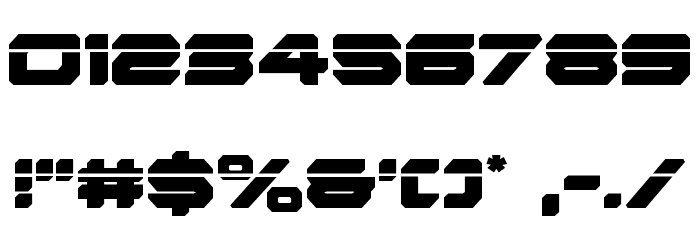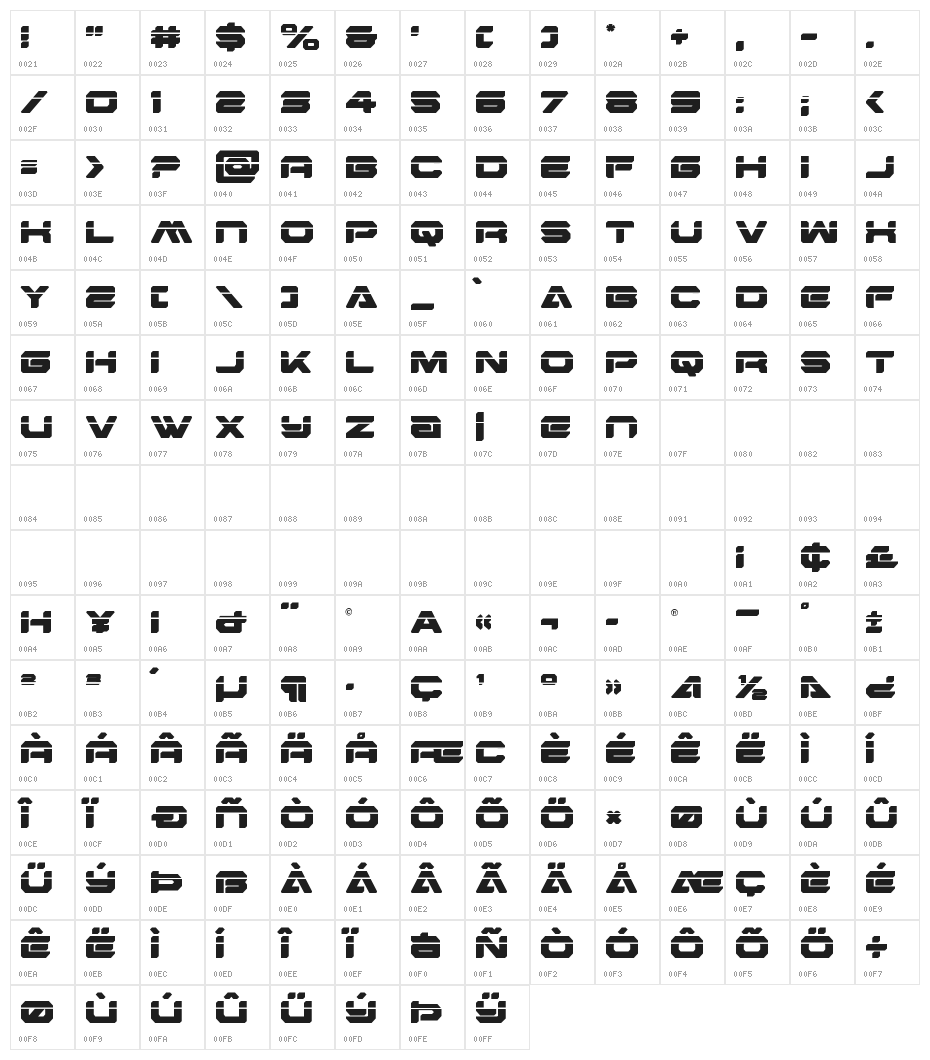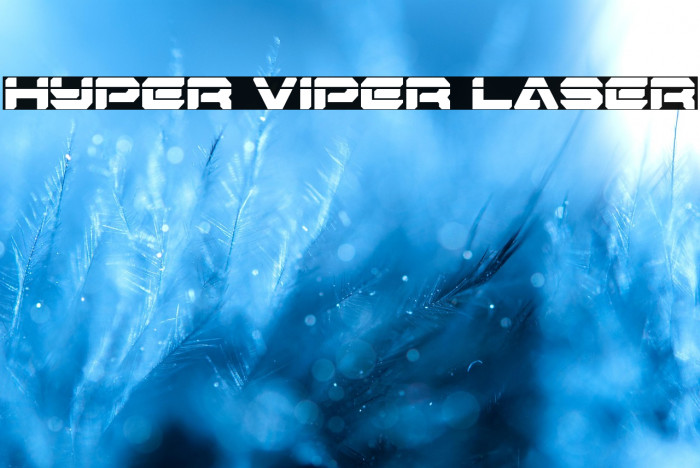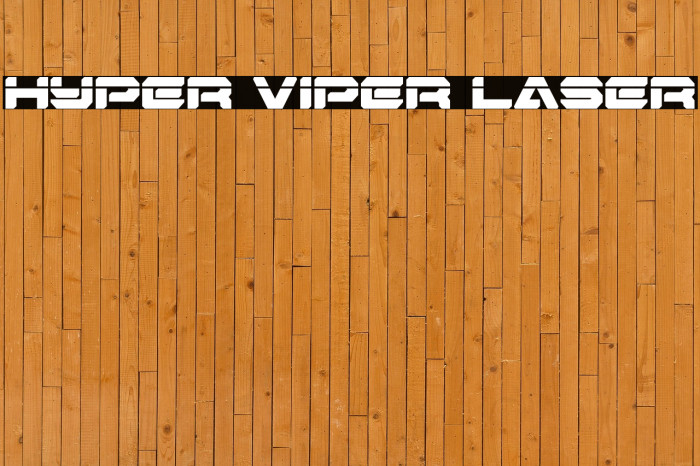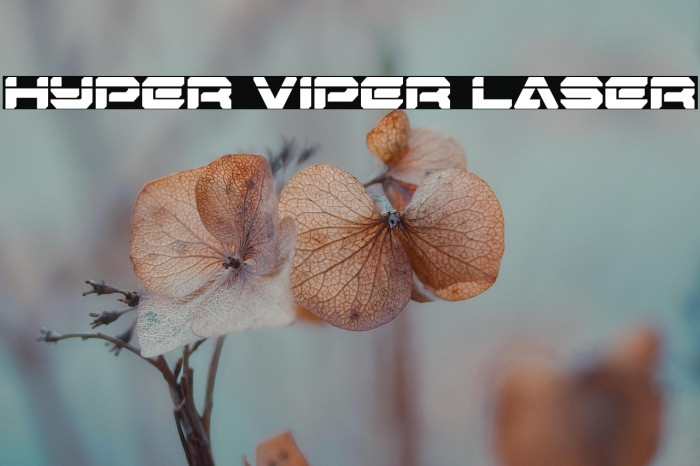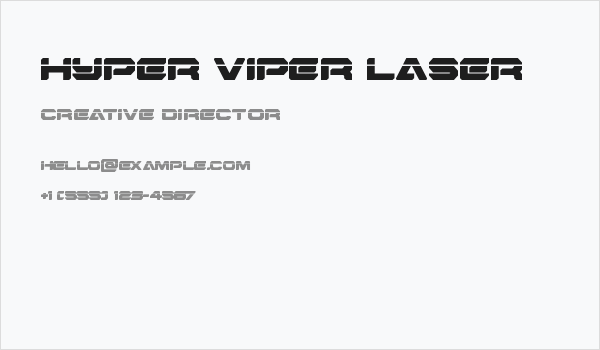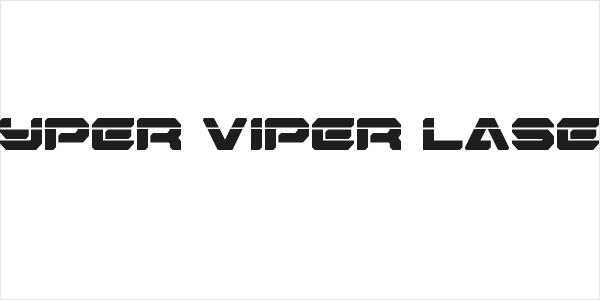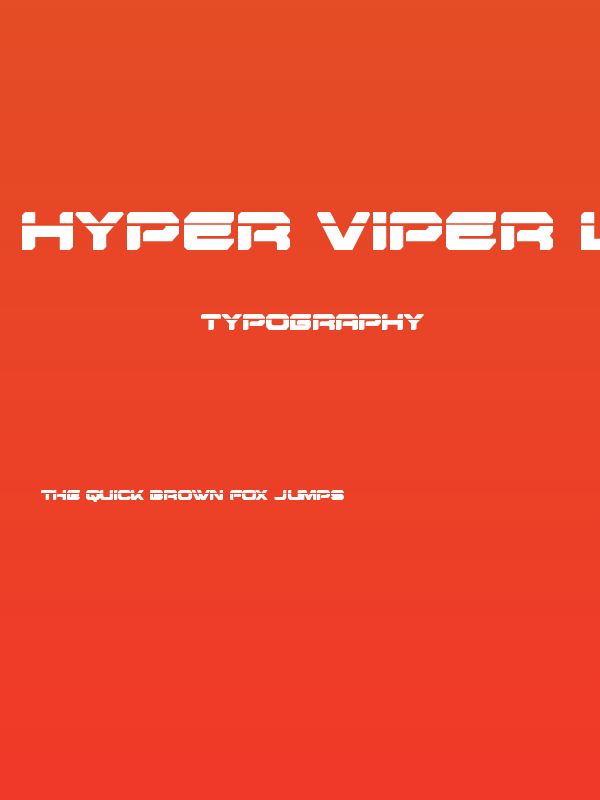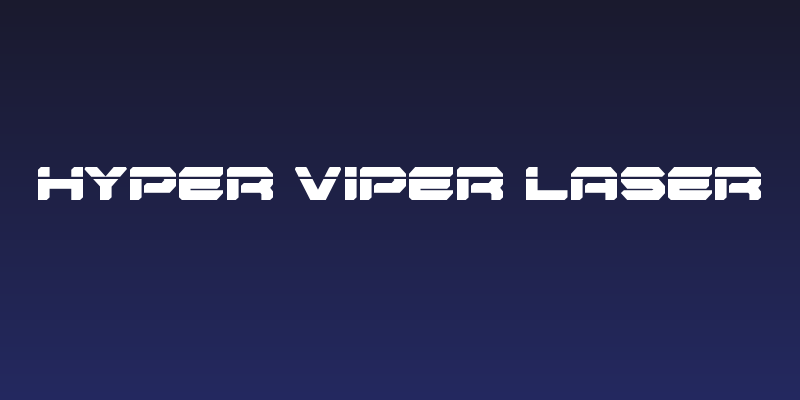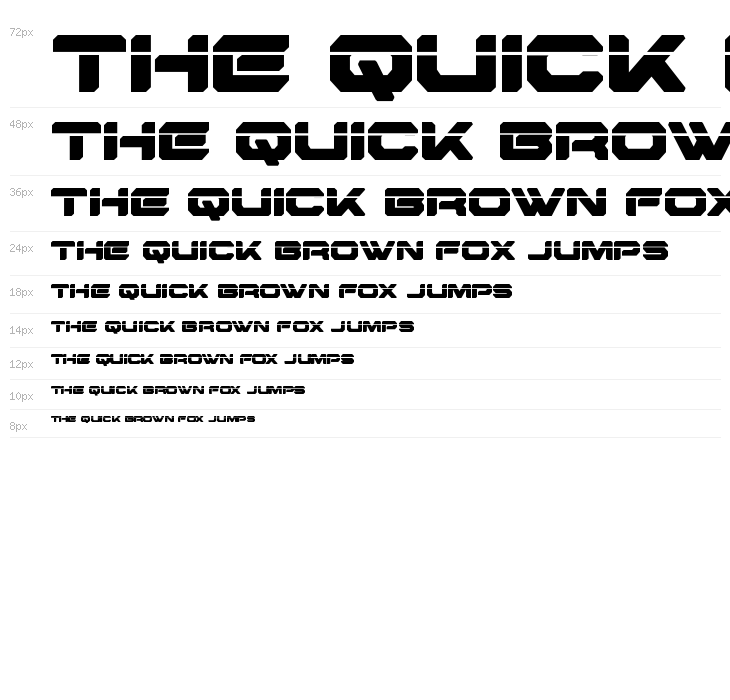
Hyper Viper Laser Font
Hyper Viper Laser Description
This font features a bold, futuristic design with sharp angles and geometric shapes. The characters are constructed with a stencil-like appearance, giving them a modern and industrial feel. The uppercase letters are particularly striking, with consistent height and width, creating a uniform look across the alphabet. The numerals and special characters maintain the same bold style, ensuring cohesion throughout the font. The overall design is highly stylized, making it suitable for projects that require a strong visual impact.
| Proposed Projects | Ideal for sci-fi themed projects, video game titles, technology branding, and futuristic posters. |